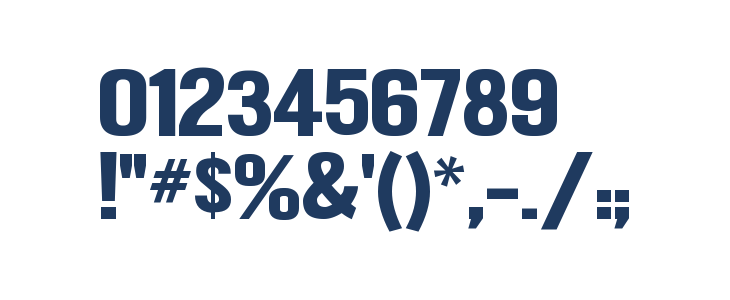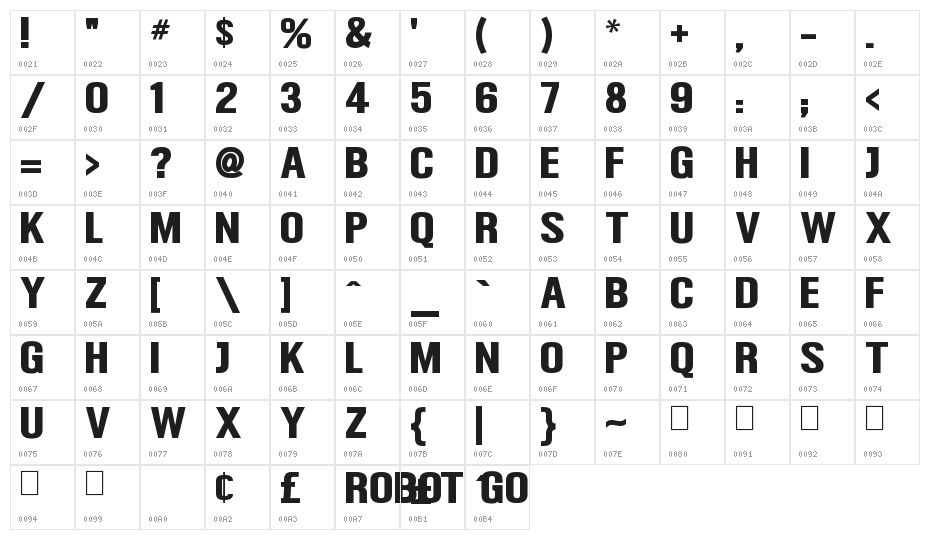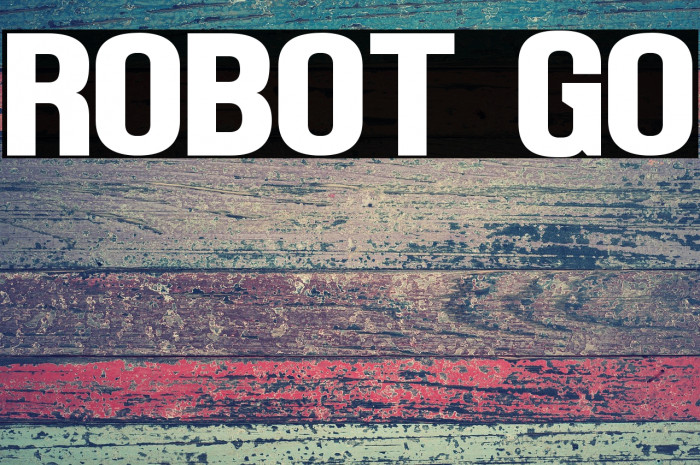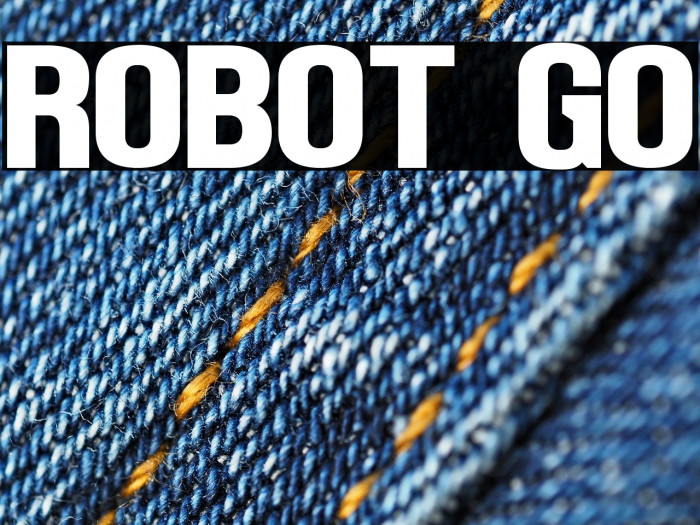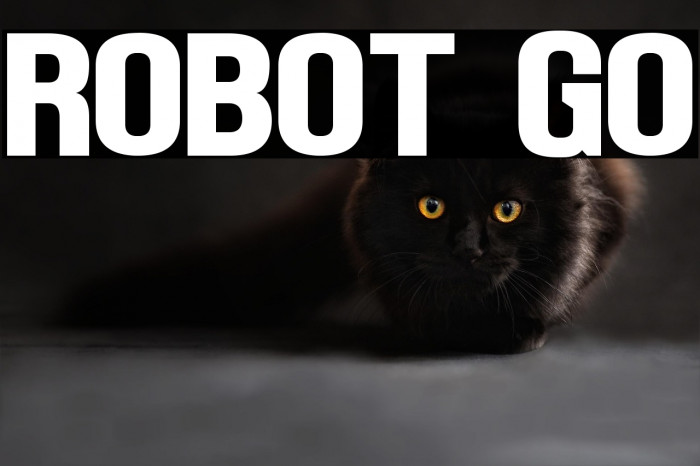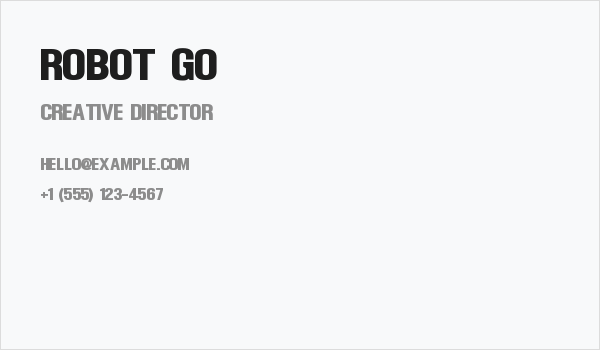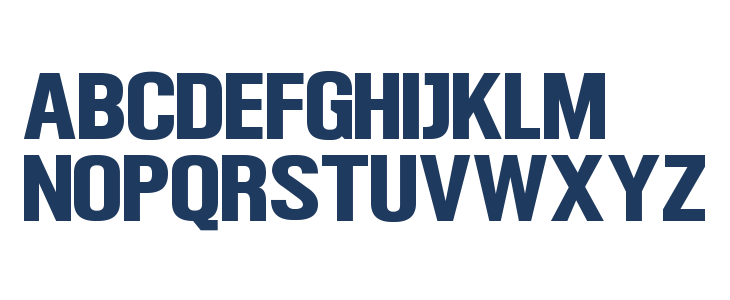
Robot Go Font
Robot Go Description
This font is a bold, sans-serif typeface characterized by its strong, impactful presence. The uppercase letters are uniform in height, with a consistent stroke width that conveys a sense of stability and confidence. The lowercase letters maintain the same boldness, ensuring readability and visual harmony. The numbers are equally robust, making them ideal for attention-grabbing designs. Special characters are designed with the same bold strokes, ensuring they stand out. This font's overall style is modern and assertive, suitable for projects that require a strong visual impact.
| Proposed Projects | Ideal for headlines, posters, branding, and advertising where a strong, impactful presence is needed. |